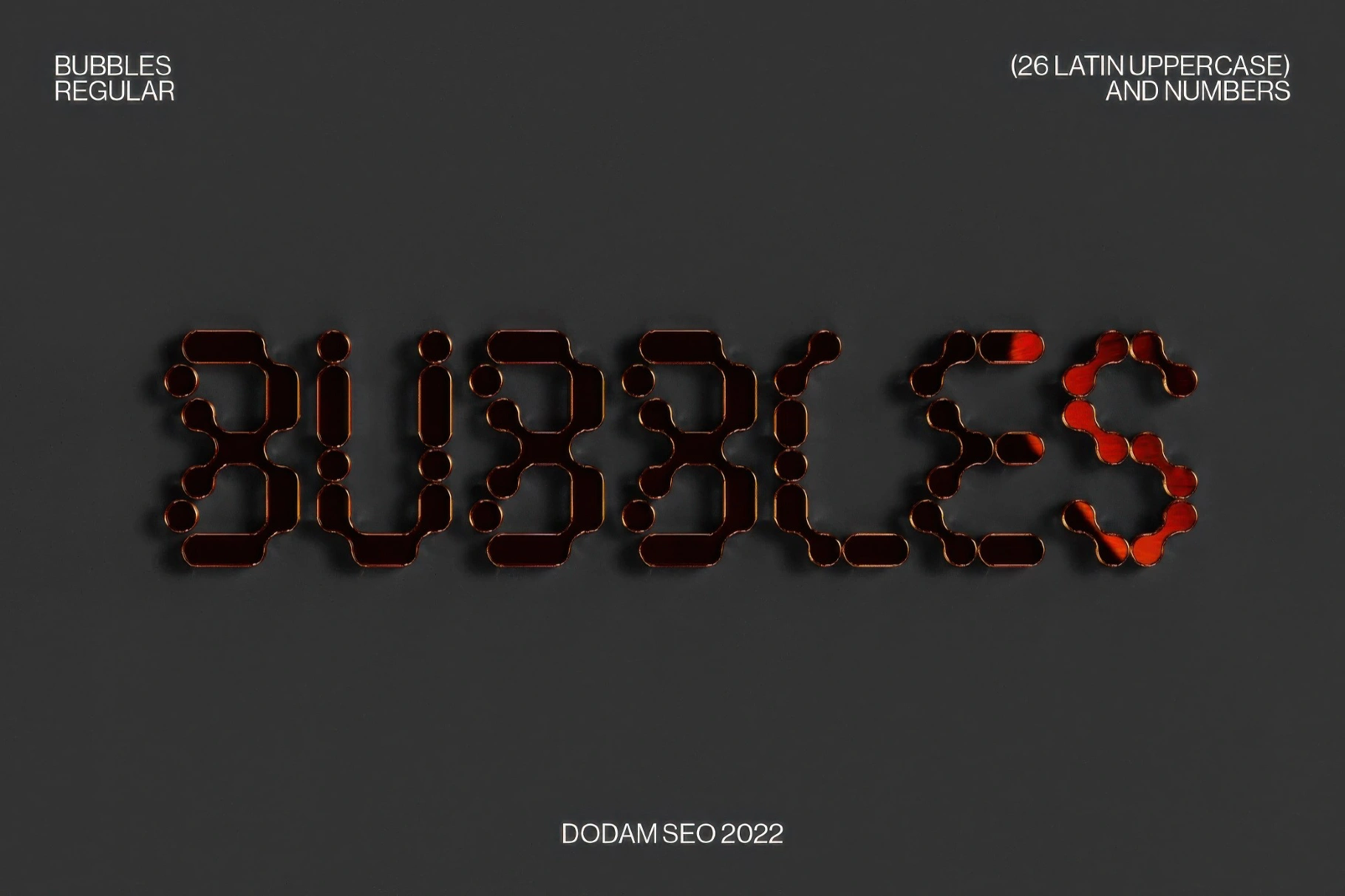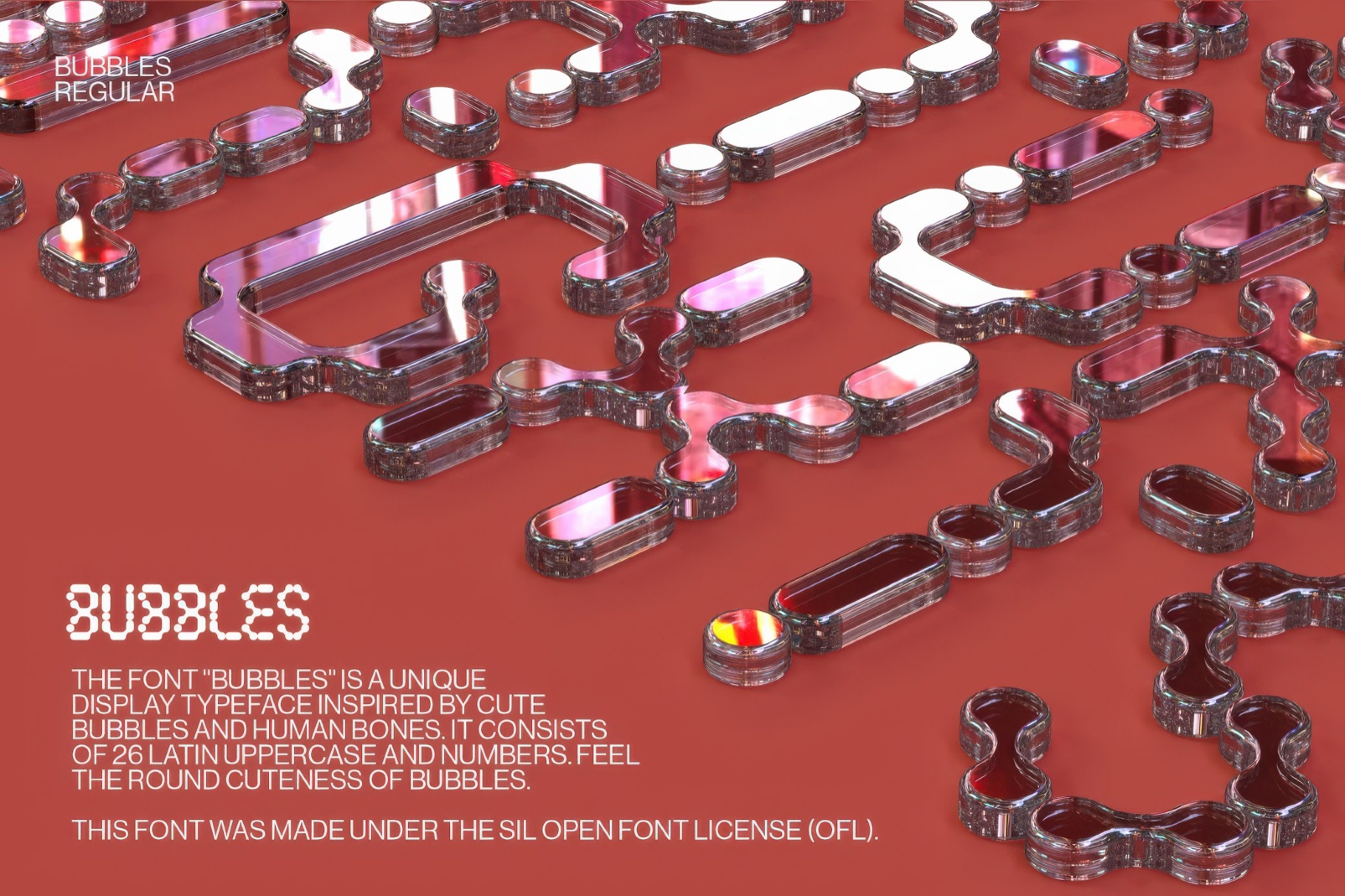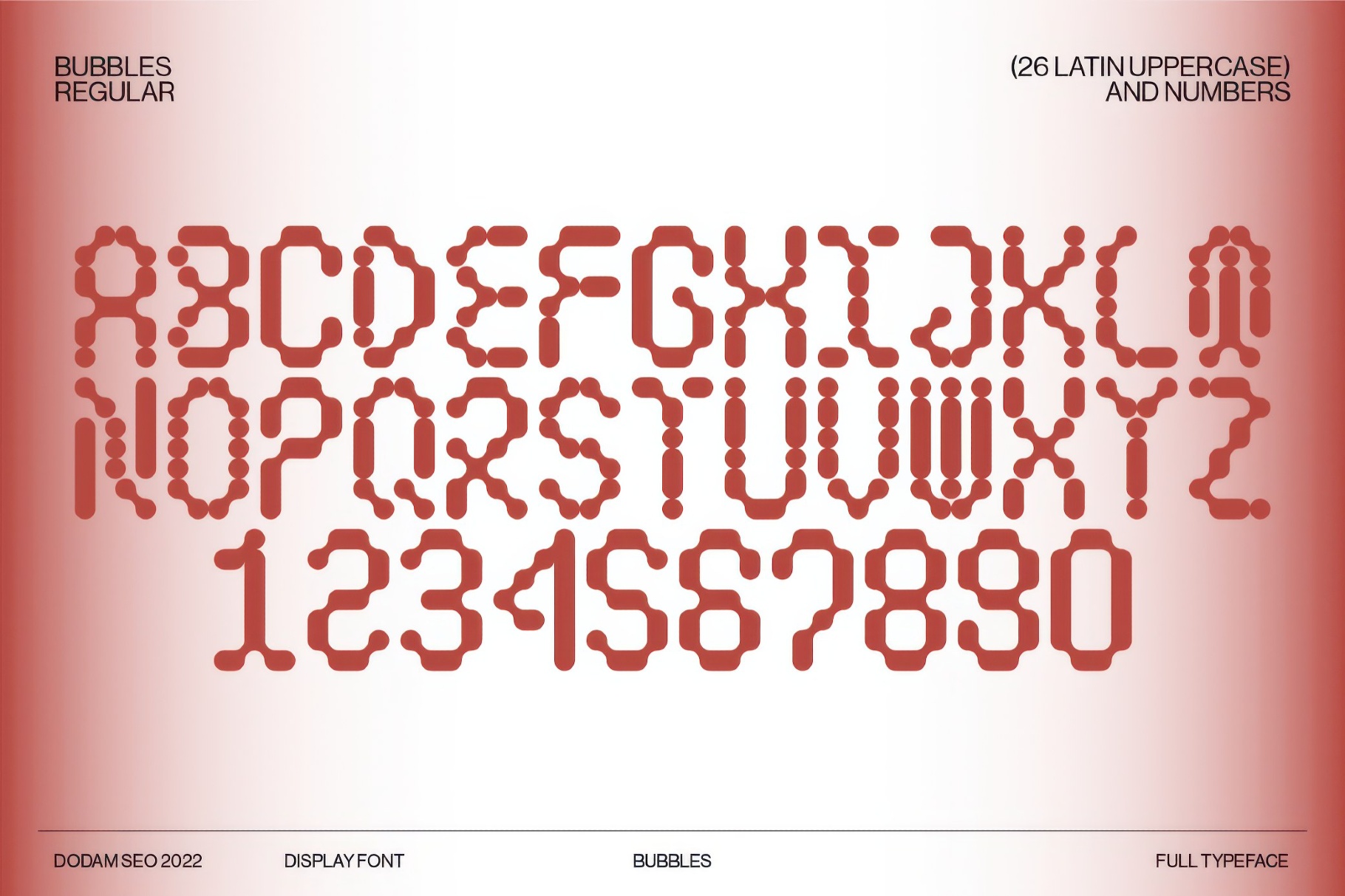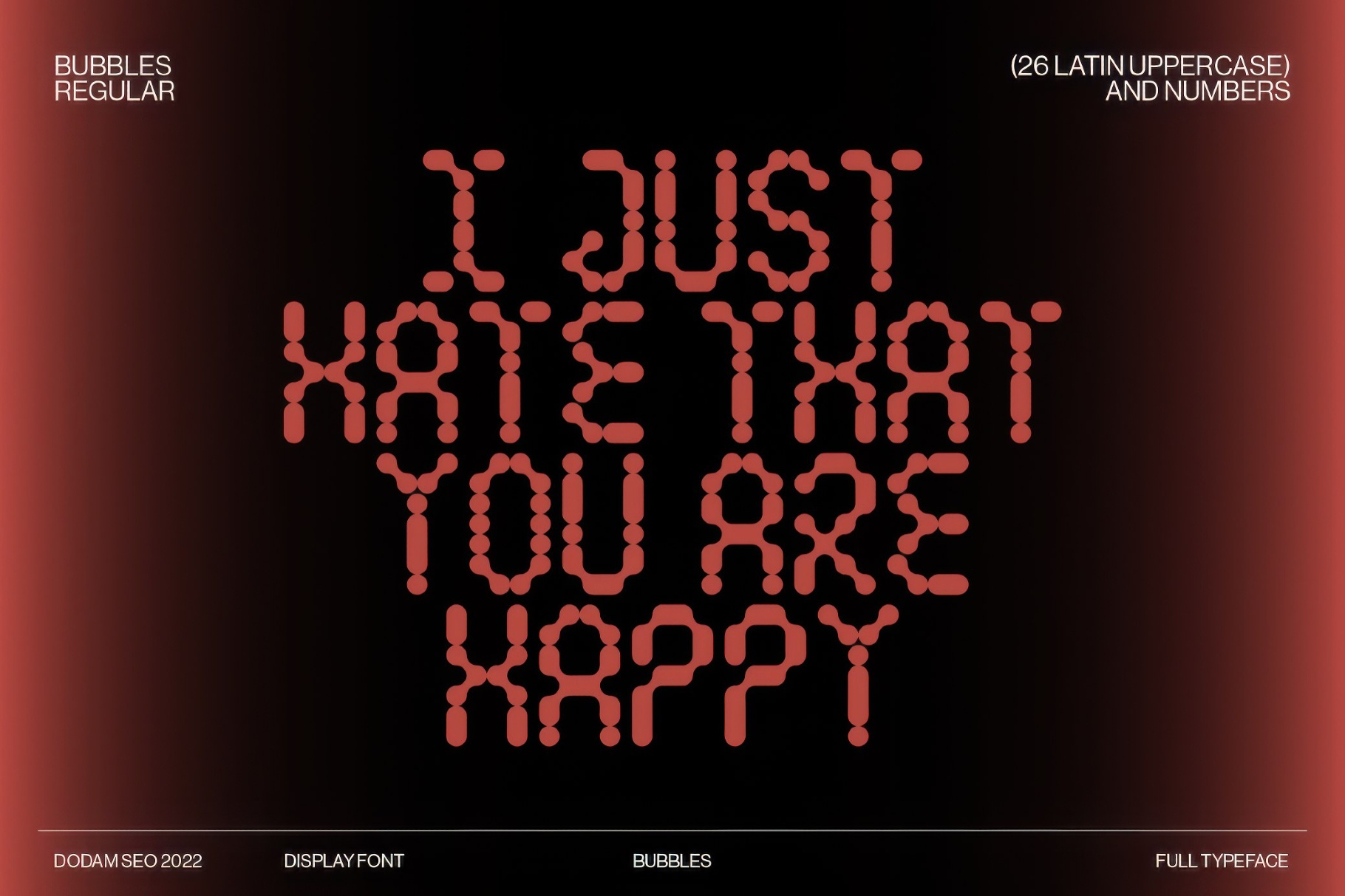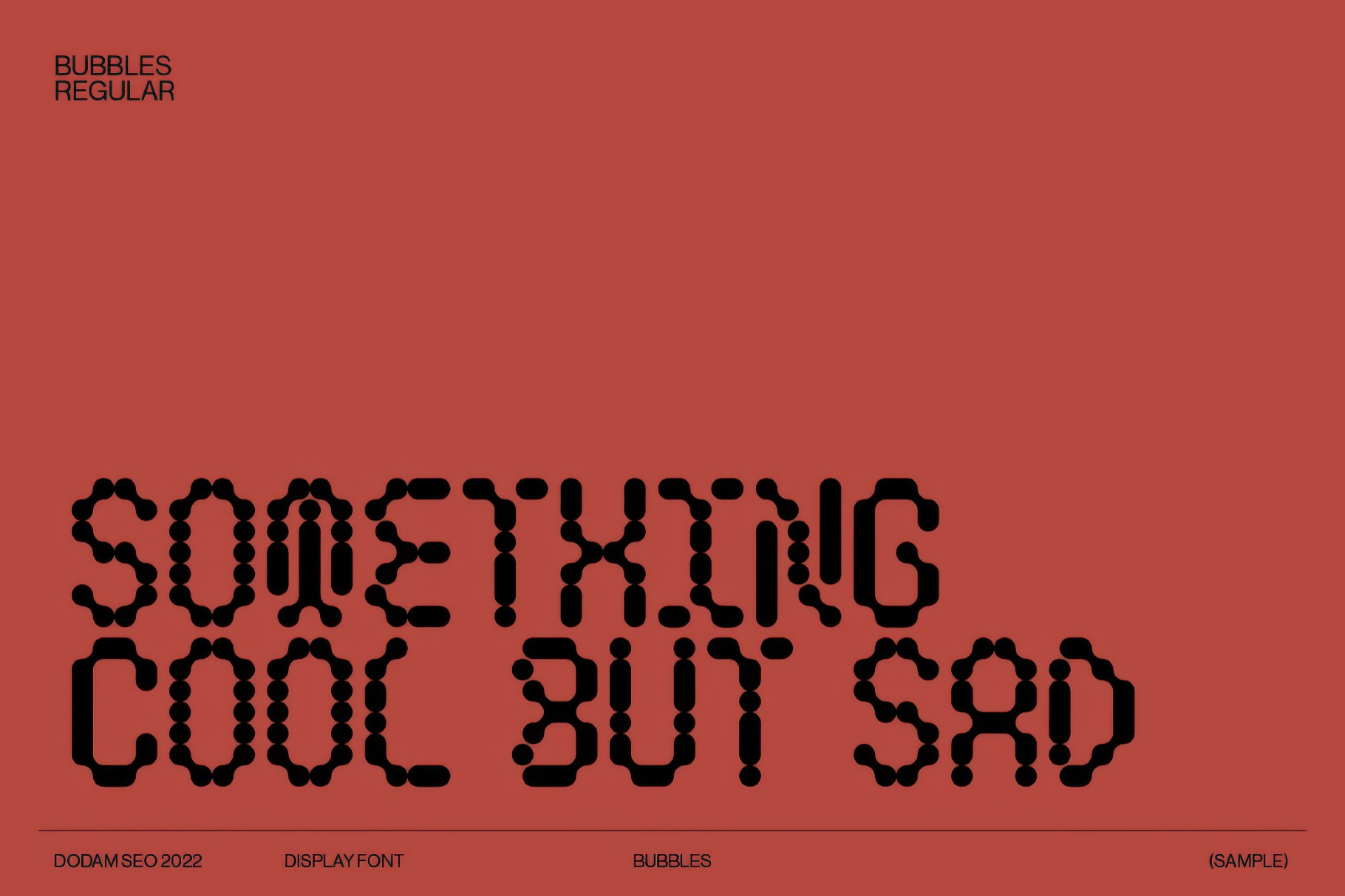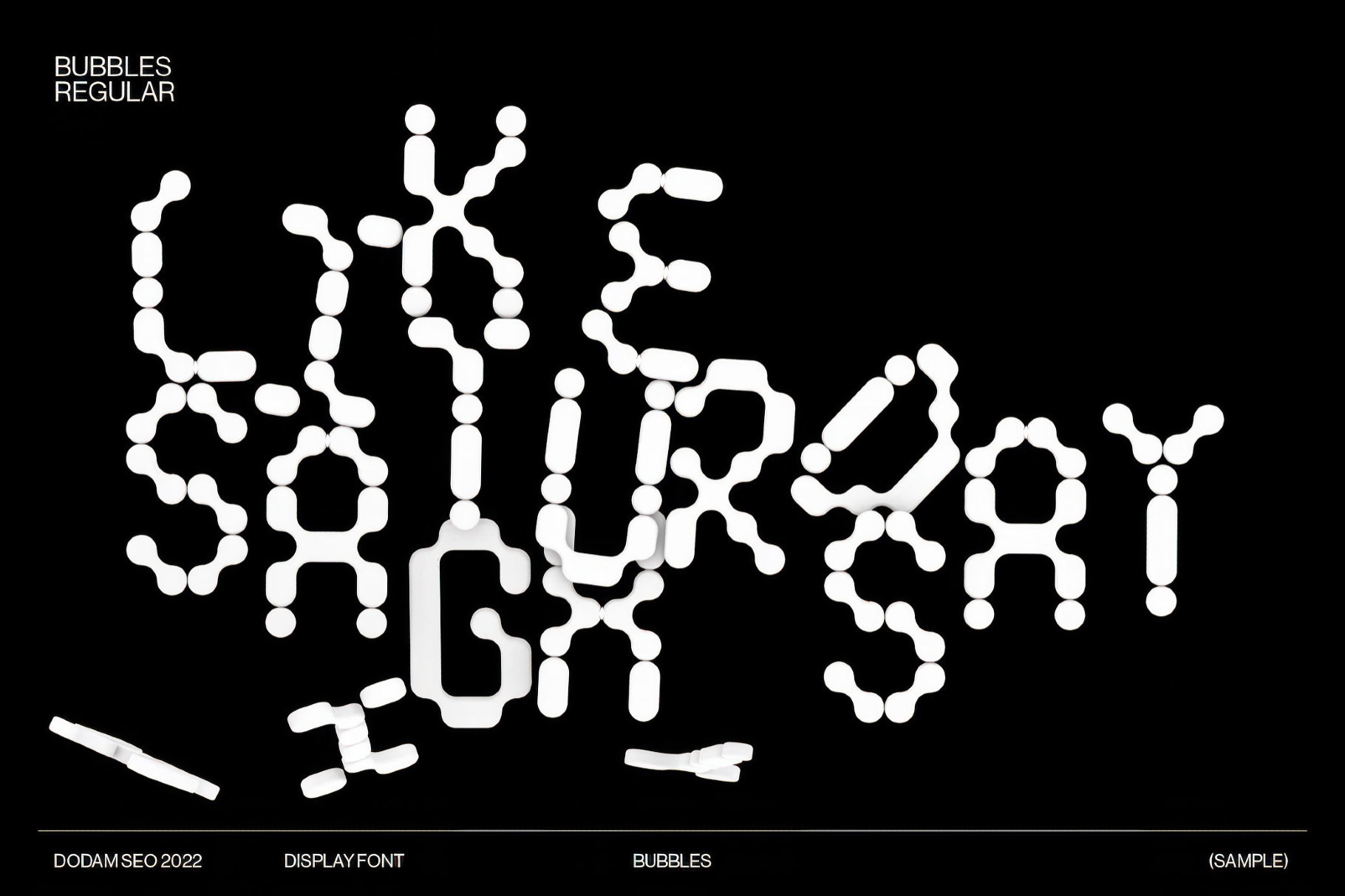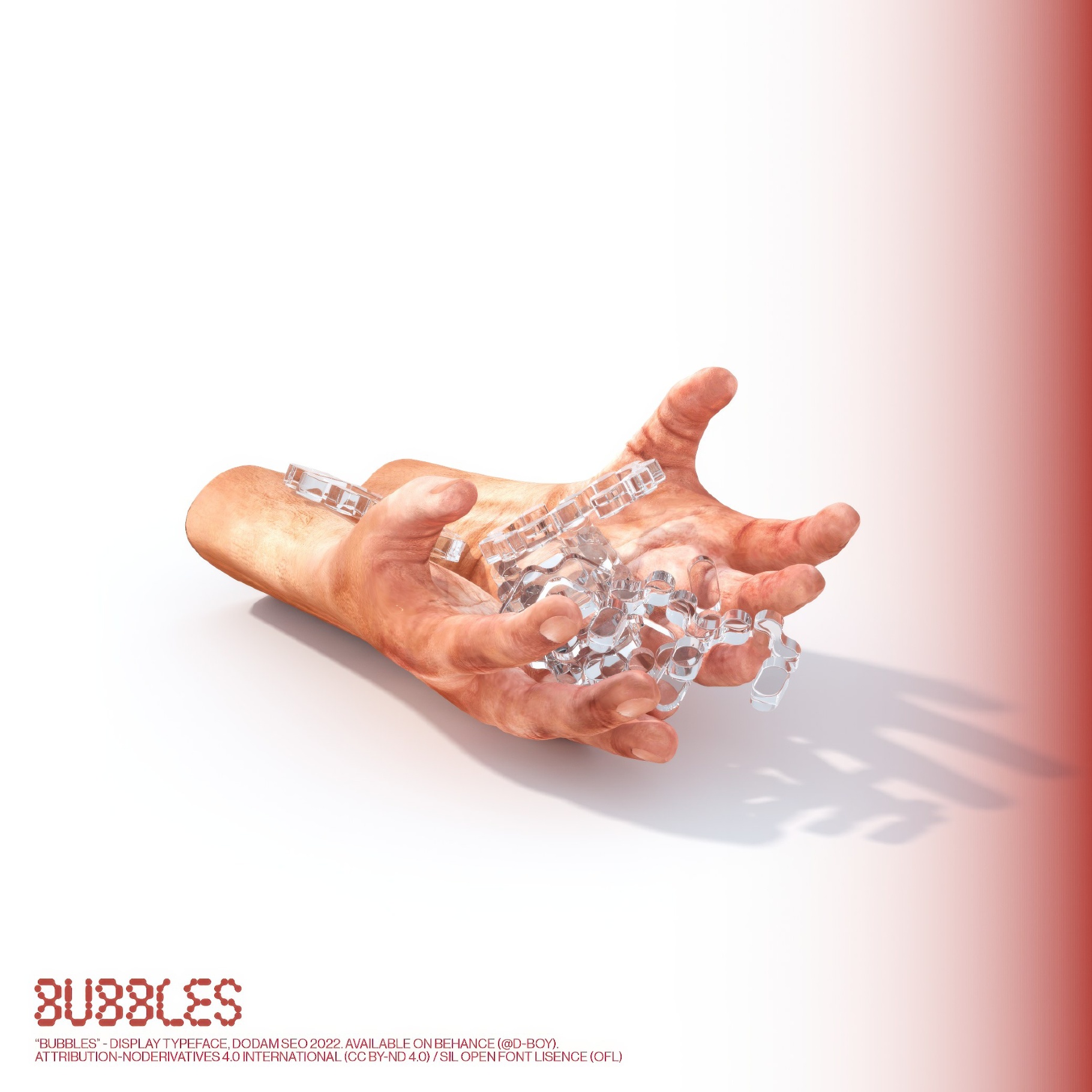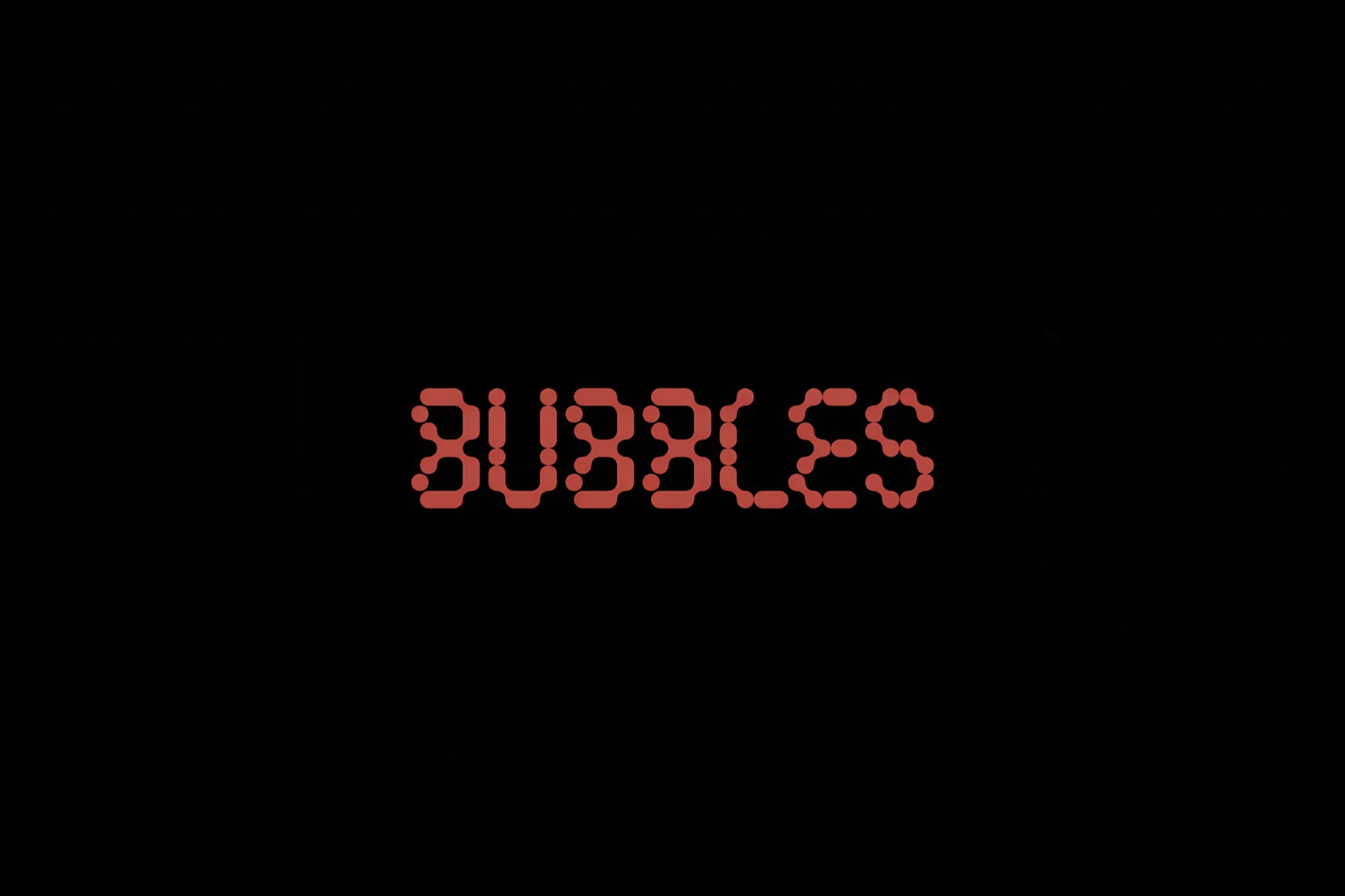
Bubbles Regular
Bubbles turns bubbly silhouettes and bone-like structures into a compact all-caps display alphabet. The pop-era inflated forms are ideal for kids’ branding, character names on posters and album covers, experimental logotypes, fashion packaging, gallery titles, magazine headlines, party invitations, and app splash screens. It also suits stickers and merch graphics that want bold, buoyant shapes.
Included: Latin uppercase letters plus numerals.